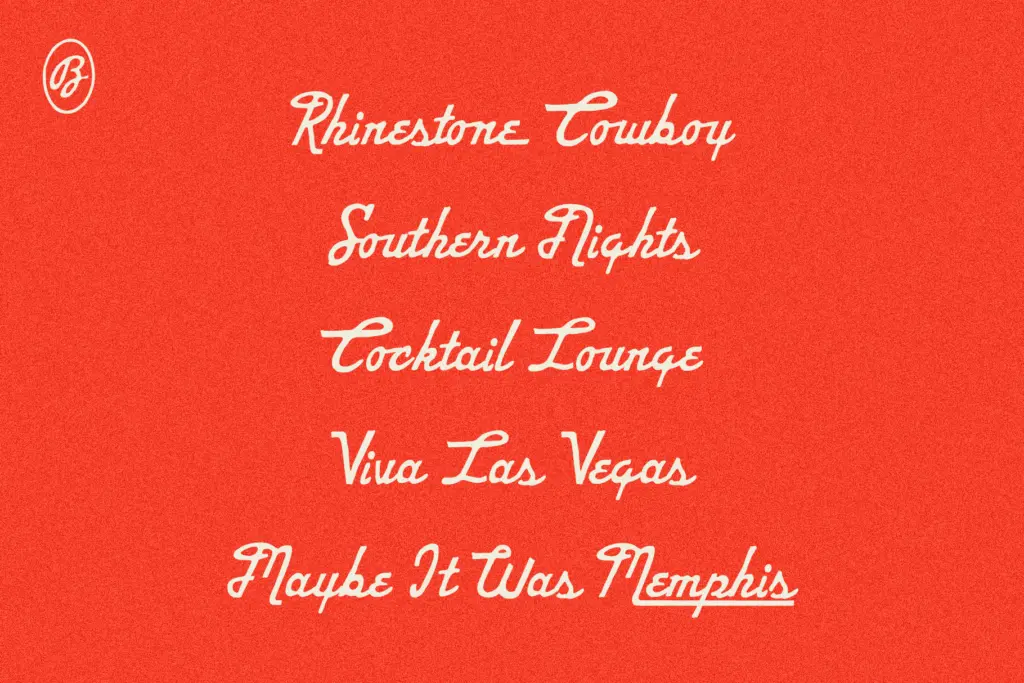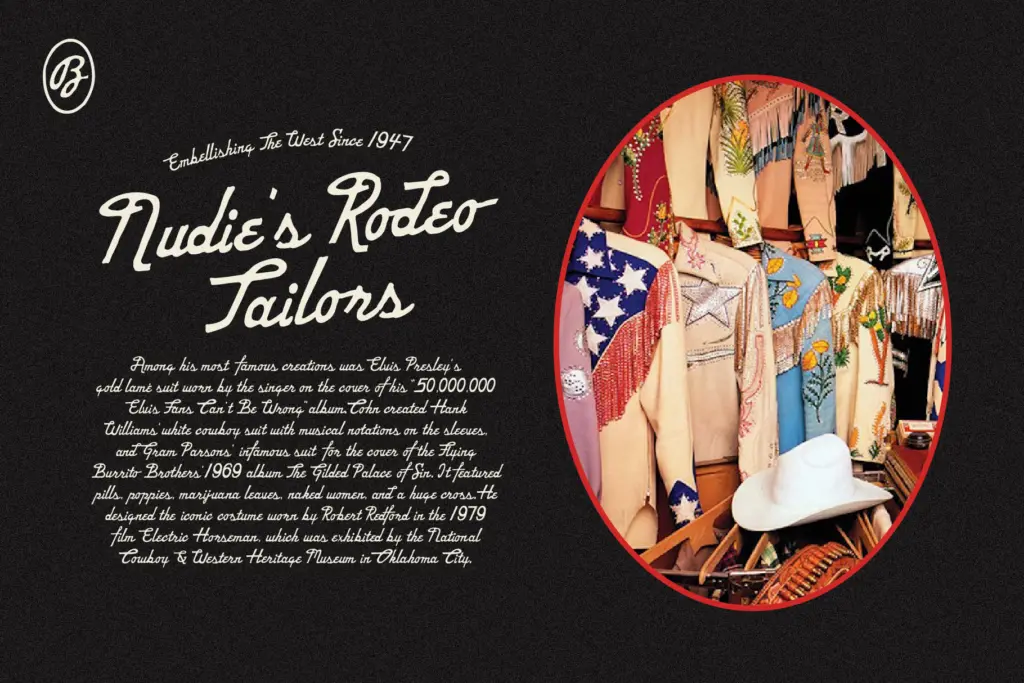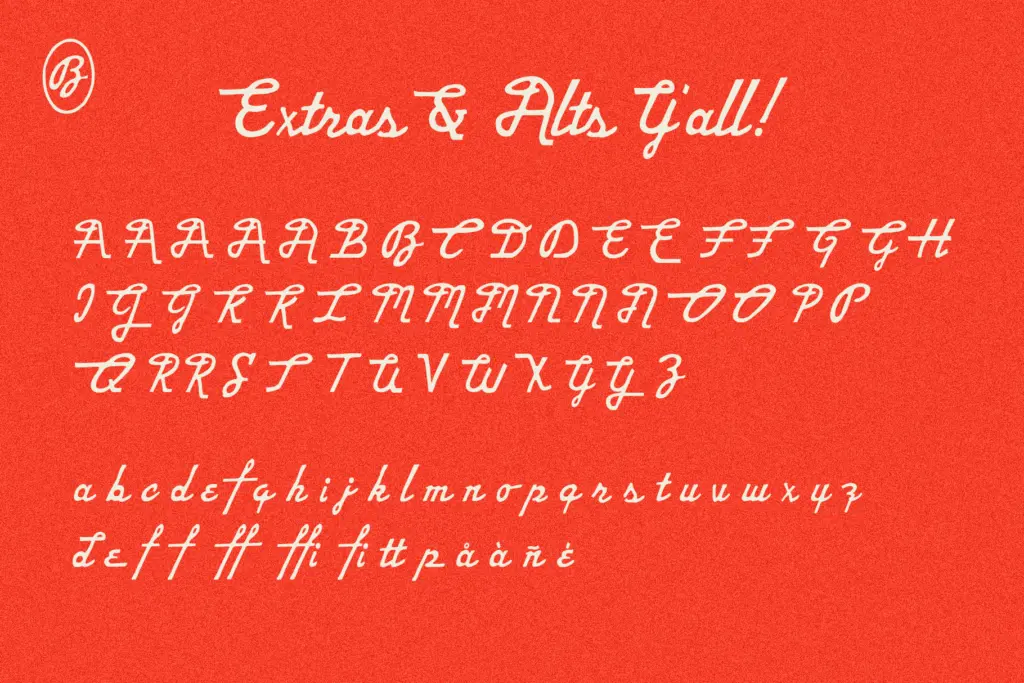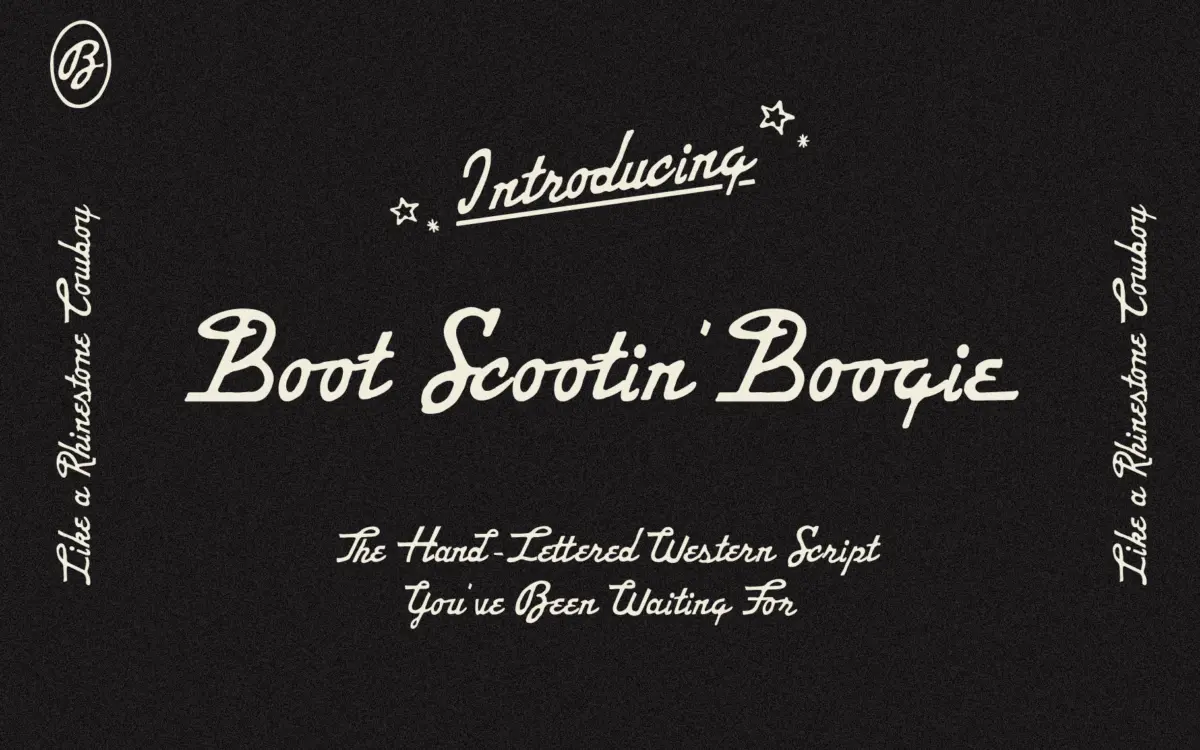
Boot Scootin’ Boogie Script sits in that corner of the script market built for saloon signage and rodeo posters rather than wedding suites. The letters are hand-lettered, and it shows in a good way: strokes swell and taper unevenly, baselines wander a touch, and joins between letters look drawn rather than interpolated. There’s a rope-like heaviness to some of the connecting strokes that nods to lasso curves and tooled leather without becoming a novelty gimmick.
The angle is upright to slightly forward-leaning, which keeps it readable at a glance rather than reading as pure flourish. Where a lot of Western scripts lean hard into swash extremes, this one holds back — the swashes exist but they’re mostly confined to caps and word-end letters, so the overall texture stays even. It reads as a font built by someone thinking about a full logotype rather than one impressive specimen word.
As a single hand-lettered script, the appeal here is in the consistency of the rough-hewn line quality across the alphabet rather than in a big feature set of alternates and ligatures. Some scripts in this genre offer stacks of contextual alternates to break up repeated letters; without confirmation that this one does the same, the safe assumption is a more straightforward character set of upper and lowercase, numerals, and standard punctuation.
What that means practically: repeated letters within a word will look identical unless you manually swap in an alternate glyph, if one exists, so keep an eye on words with doubled letters when setting longer phrases. The x-height is generous for a script of this style, which helps offset the informality of the stroke — lowercase letters don’t disappear at small sizes the way some more calligraphic scripts do.
This is a display font first, and it wants short bursts of text: a business name, a tagline, a badge lockup, a single line on a poster. Country music branding, Western wear labels, BBQ joints, rodeo event graphics, and craft beverage packaging with a rustic bent are the obvious lanes, and the font doesn’t fight you if you try to push it there.
It also works reasonably well for retro-leaning wedding stationery if the couple wants something with more grit than a polished calligraphic script — think barn wedding invitations rather than black-tie ones. Pair it with a plain slab or a worn sans for supporting text; the script is expressive enough that it needs a quiet partner to sit next to.
Where it struggles is body copy and anything that needs to run more than a few words at a stretch — the irregular baseline and heavier strokes start to work against reading comfort once you’re past a headline’s worth of type. Treat it as a name-and-logo tool, not a paragraph tool, and it does its job well.
- Hand-lettered stroke variation gives it a genuine rustic character rather than a filtered effect
- Generous x-height keeps lowercase legible at small display sizes
- Restrained swashes make it easier to set full words and short phrases without visual clutter
- Limited alternate glyphs mean repeated letters in a word can look mechanically identical
- Irregular baseline and heavier strokes make it unsuitable for anything beyond a few words of text
Boot Scootin' Boogie Script is a confident, well-drawn Western script that knows its lane and stays in it. It's a strong pick for branding and packaging with a rustic or rodeo theme, but it's not built for long text or for projects wanting a more neutral, elegant script.